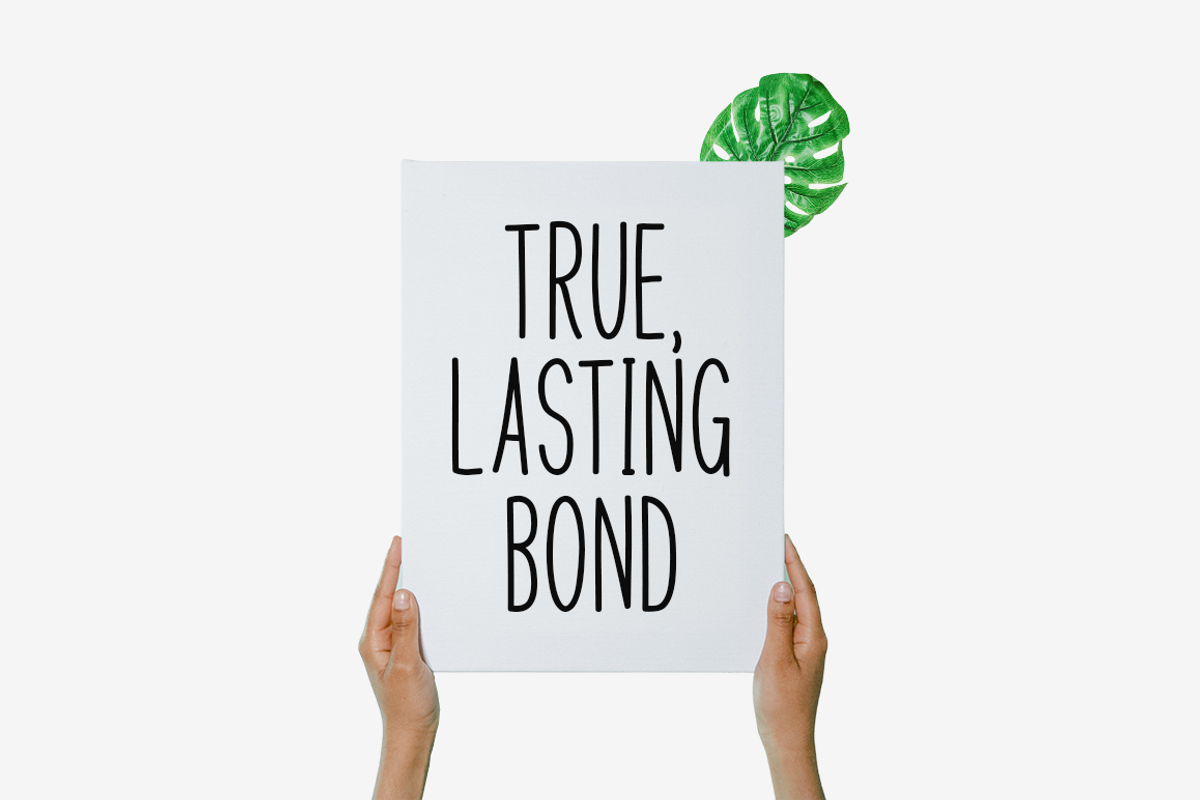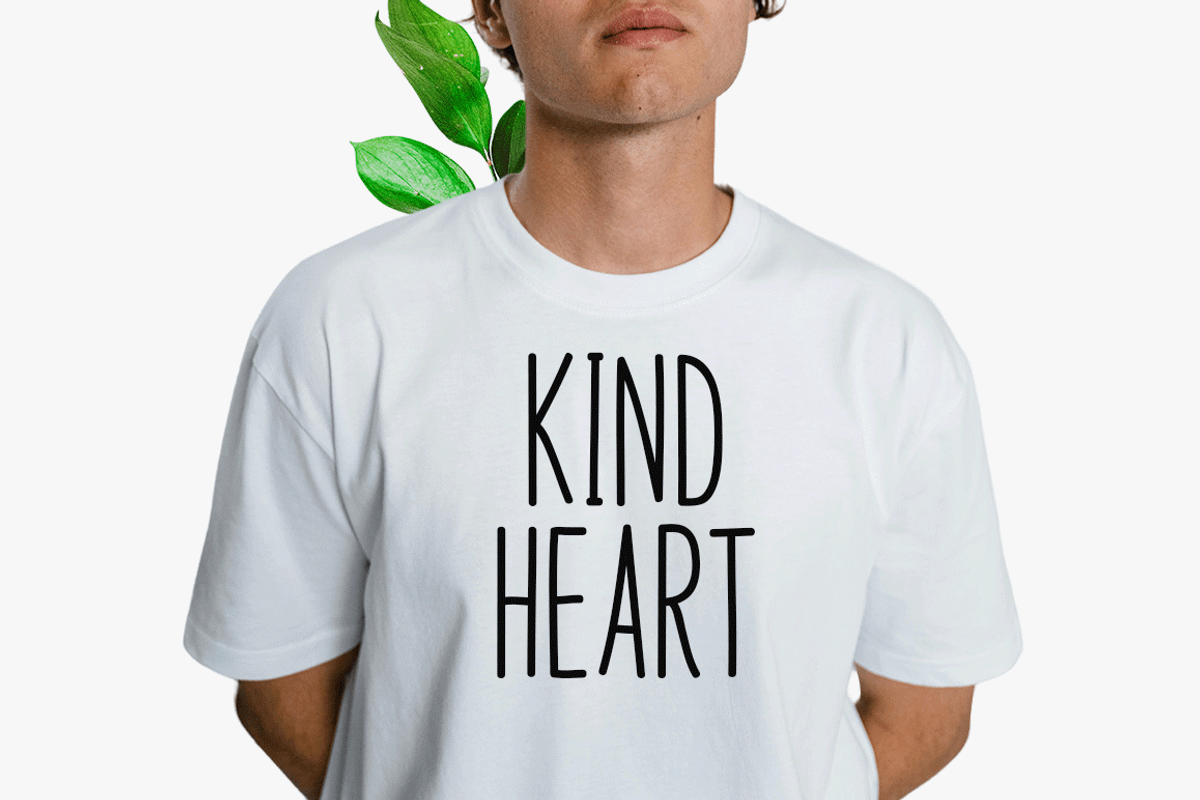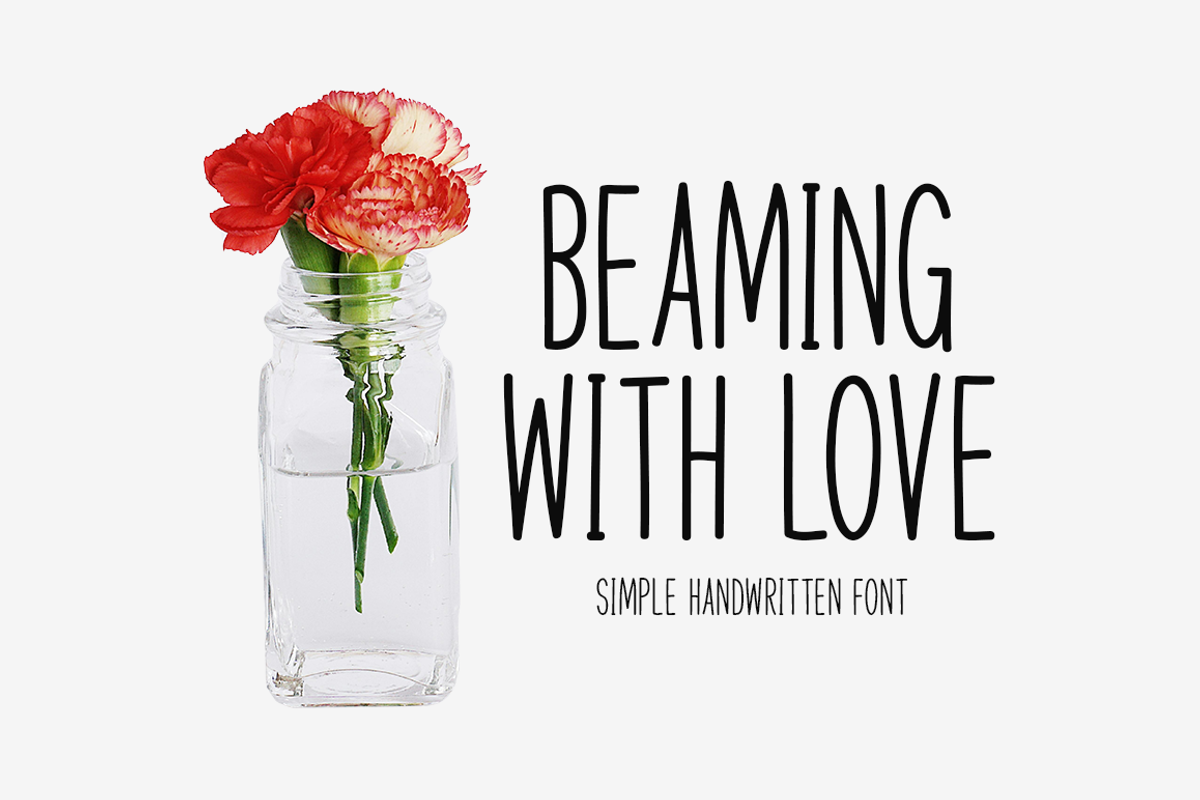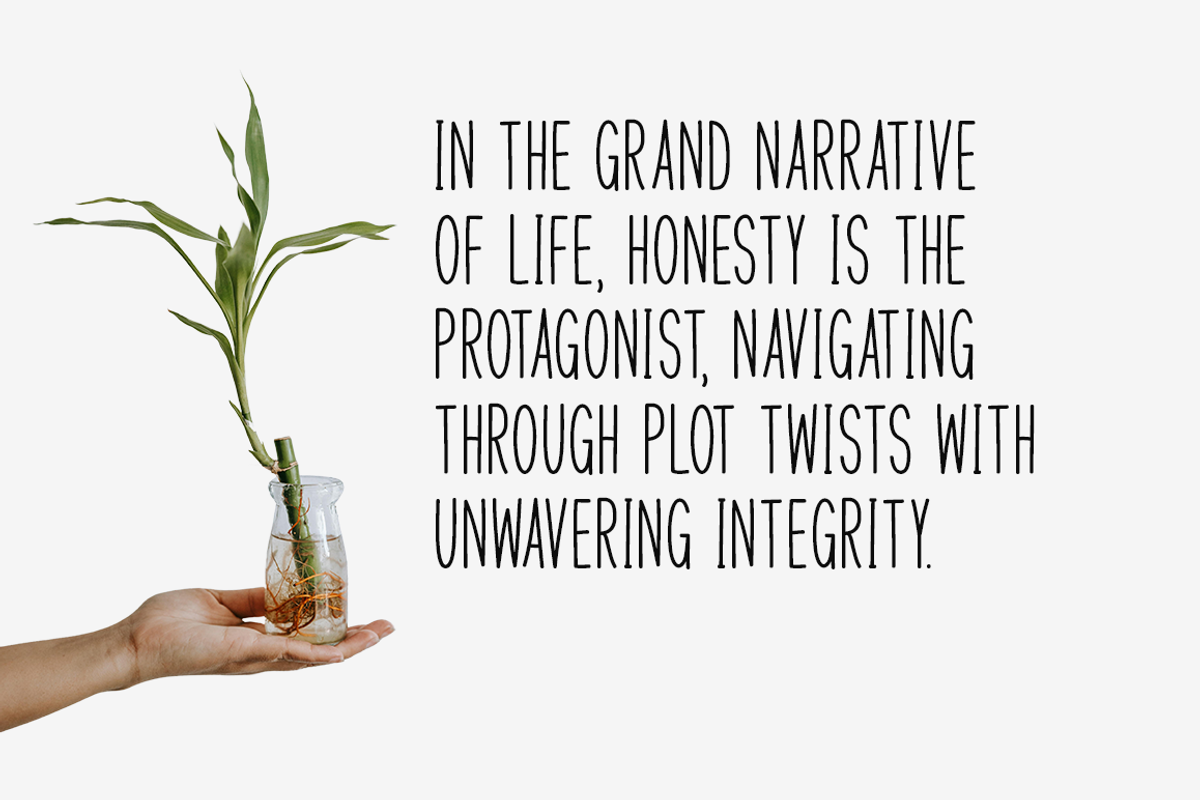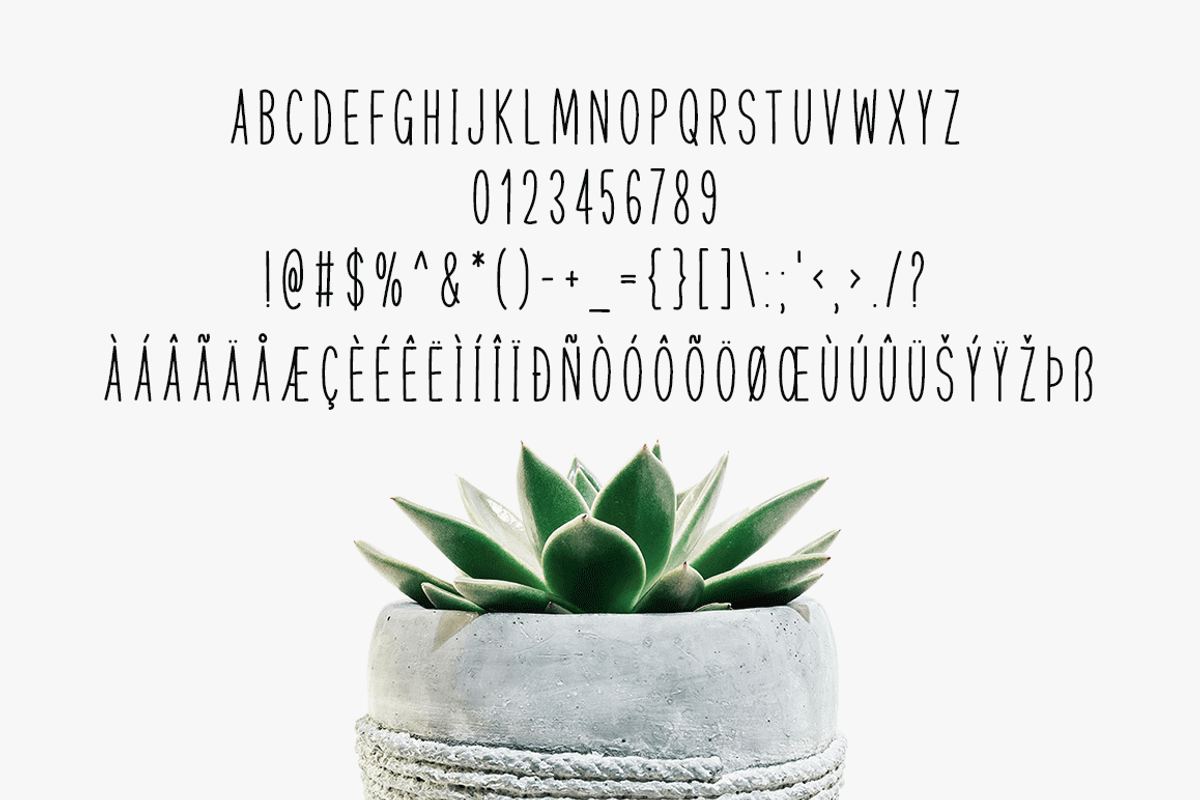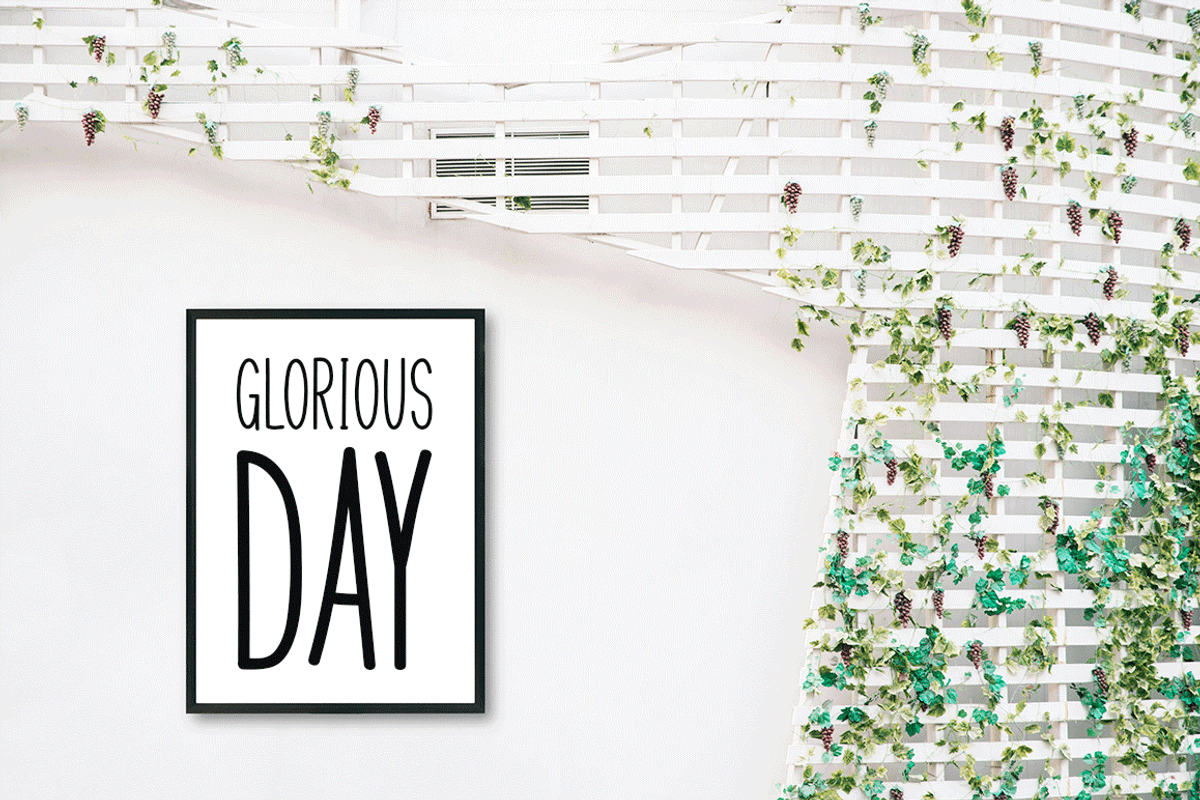
Beaming With Love Typeface
Introducing Beaming With Love!
Discover the beauty of Beaming With Love, a simple handwritten font that exudes grace and charm. Perfect for various projects, including stationery, apparel, and promotional materials, this versatile typeface adds a touch of elegance to any design. Whether you're crafting a logo, a flyer, or a picture frame, Majestic Bullfinch's delicate lines and refined appearance create a sense of sophistication and style. Let your creativity soar with this timeless and versatile font.
Includes a range of multilingual support